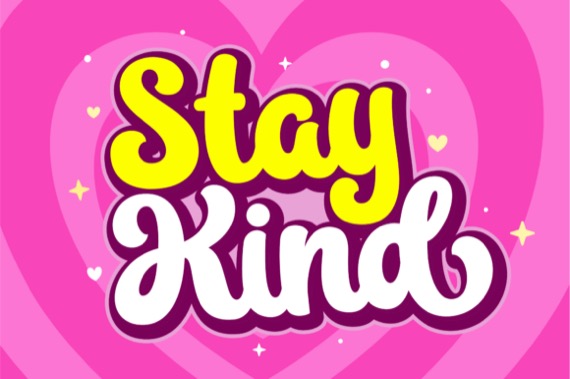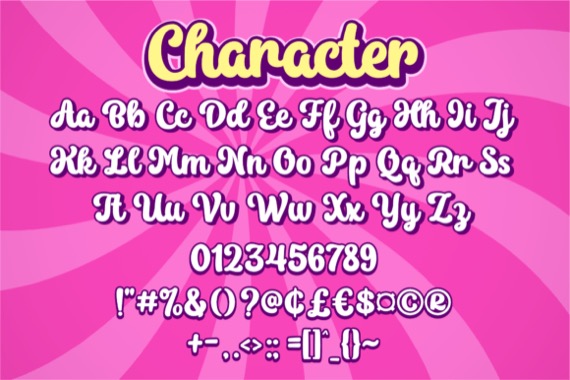
It was created and published by Holydie Studio, Funky Baby is a vintage and bold handwritten font. Fall for its ravishing style and use it to create gorgeous designs. It has beautiful and well-balanced characters and as a result. This font is PUA encoded, which means you can easily access all glyphs and swashes!
Funky Baby Script Font